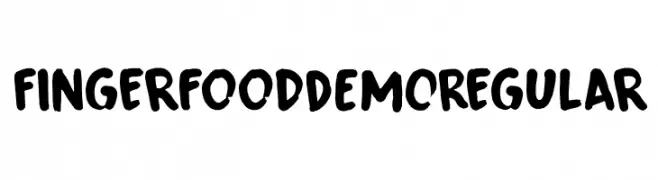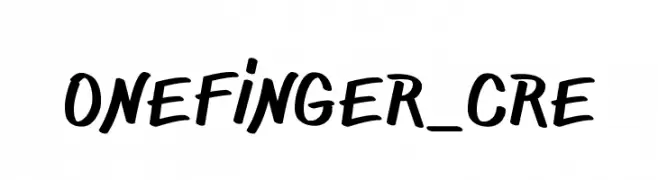
( Fonts by Fred Cre )
A playful, bold handwritten font with dynamic strokes.
A playful, handwritten font with bold, dynamic strokes.
( Fonts by Sophie Fraser )
An artistic, brush-stroke style font with dynamic and expressive characters.
( Insane Machina - Fernando Henrique de Sousa - www.insanemachina.com )
A whimsical, hand-drawn font with irregular shapes and playful character.
( Jmk - Jason Muriithi Kiama )
A bold, geometric font with rounded edges and a modern, playful style.